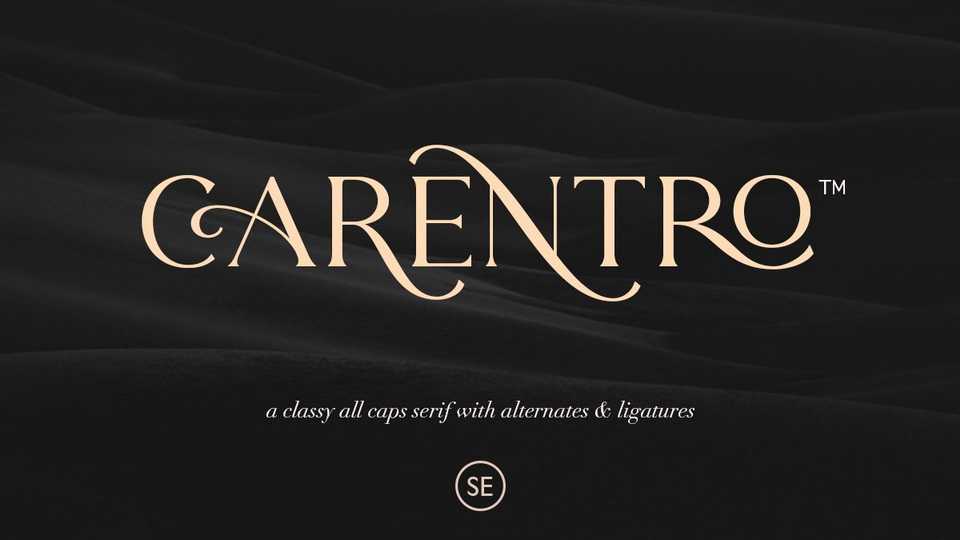
Download Carentro font, a classy and modern serif typeface with a bunch of alternates for each characters and ligatures that will make your presentation or logo even more stunning and stand out.